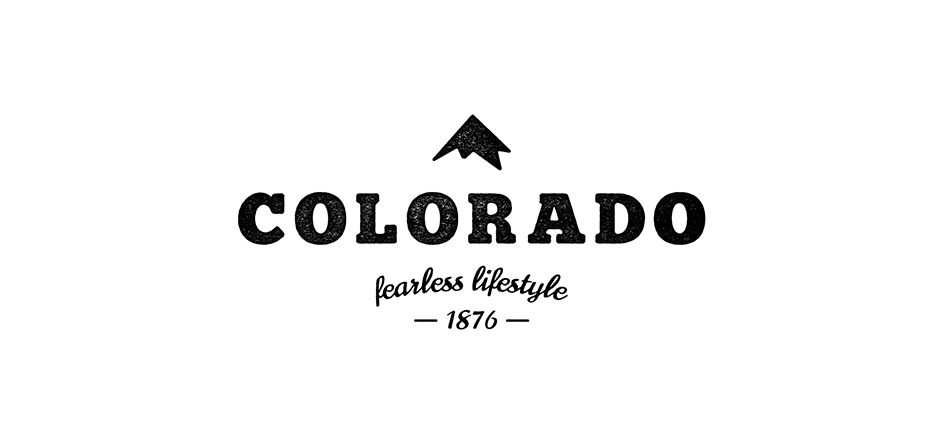
An interview with Luke Anspach on his quest to rebrand USA
It all started as a Senior exit project for Luke's Anspach undergrad in college but soon grew into a worthwhile revolving concept showing the United States as a melting pot through cohesive and yet unique state brands. He wanted to take a fun break from client work and explore a design style that he wasn’t typically able to do in a commercial setting. Since then, it has developed a new life of its own with a vision to “Reveal beauty and inspire wonder back into America.” He believes that so much of the United States has lost its patriotism and love for country. “We’ve taken our nation for granted.” He adds to this, our media is all very negative, never showing anything positive that is happening in the country or across the globe. And here comes the new vision for the Branding 50 States project is to put something positive out there about the United States and help foster a sort of national and state pride in where we live. Again, its purpose is to “Reveal beauty and inspire wonder back into America.”
“Reveal beauty and inspire wonder back into America.”
Get prepared for great amount of juicy information because Luke shared his opinions on Branding 50 States of America, what a designer should keep in mind while choosing the typography on a city branding project, which already designed city brands are considered worthy to his opinion and what people think on city branding.
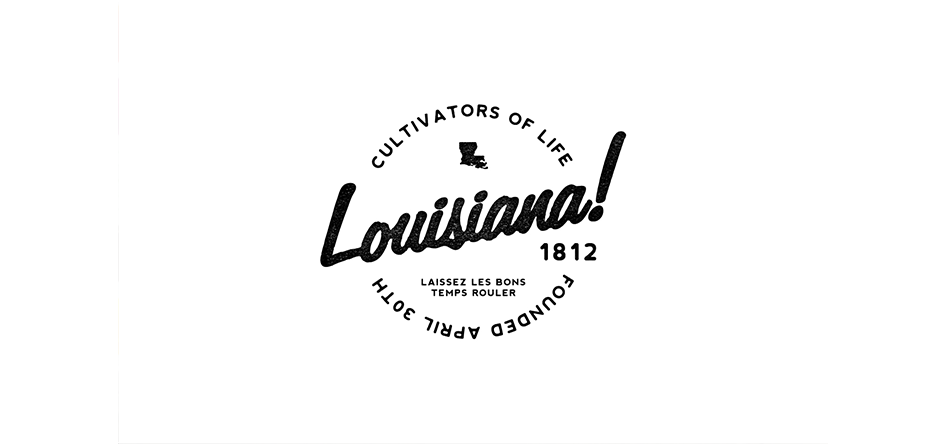
What things you take into consideration when designing each state identity and what is the process?
I start with a good amount of research about the state. I look at its history, culture, economy, what it has been known for (both now and before), the various tag lines the tourism sector has used for it, what it’s like now, and where it’s headed. I basically try and take a large and over-arching look at “who” the state is and “what” makes it unique.
“I take into account the research that I’ve done, the values, and the vision and seek to communicate all of that through the design.”
In this process I look for over-arching themes that appear to be consistent and make a list of values for the state. After narrowing down the values, I develop a “big idea” or over-arching and inclusive vision. This typically becomes the tagline. Only then do I really work on the actual visual-identity. I take into account the research that I’ve done, the values, and the vision and seek to communicate all of that through the design.
You have managed to create unique typographic images for each city, that can actually represent it successfully. How important do you think typography is, when a city branding is being studied.
I think that typography is incredibly important and is quite often overlooked. Each typeface has numerous subtleties that are communicating ideas and emotions and it’s important to take into account and interpret what these are. I spend a good chunk of time in the process researching which typeface would be most effective in communicating the vision and who the state is, given the vintage-styled context. And then I usually try and see how I might alter that typeface and craft it to a place where it communicates what I want it to and is visually unique.
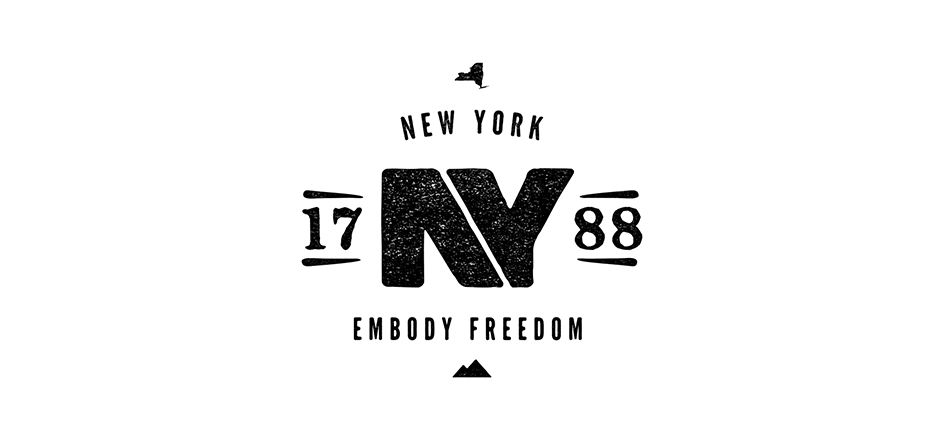
You have a visual style considering the overall image of the states, as you mention it is cohesive. Do you think that United States need a consistency in each State's design and why?
That is a great question and an interesting concept––that of unifying the designs of each state. I think from a design perspective, it would make sense. Like any brand with sub-brands, good design goes together and supports each other. I think if that were ever to happen for the United States it would become very effective in communicating itself and educating others about itself to both those inside and outside of the United States.
How do you see the project when all the 50 states will be designed? Any plans for the future?
With this new vision for “Revealing beauty and inspiring wonder back into America” I hope to eventually have a Branding 50 States “brand.” I’d love to have a website where I have incorporated these designs into hand-crafted, state-specific products and where photography, film, and story can all be featured to support this vision. I have been able to collaborate already with a number of U.S. Instagramers on the project’s Instagram as well as with a T-Shirt campaign startup that used one of my designs.
We see very often that cities around the globe put efforts on redesigning their identity. Do you consider city branding an essential thing and why?
I think that “Place Branding” is extremely essential. Makoto Fujimura, a Japanese-American art-philosopher, once wrote, “Art is a building block of civilization. A civilization that does not value its artistic expressions is a civilization that does not value itself…The arts teach us to respect both the diversity of our communities and the strength of our traditions”.
“A city that brands itself (hopefully well) is one that respects itself as a community.”
I would also suggest that this applies to design as well. A city that brands itself (hopefully well) is one that respects itself as a community. The whole process of branding is about becoming self-aware and understanding who the city is and how to communicate themselves creatively and effectively. A city that chooses not to do this or chooses not to do it well, shows no value for itself, both internally and externally.
Additionally, from a economic standpoint, if a city cannot respect itself enough to present itself well, then why would anyone want to invest in or be a part of that city? I believe design directly affects its well-being.
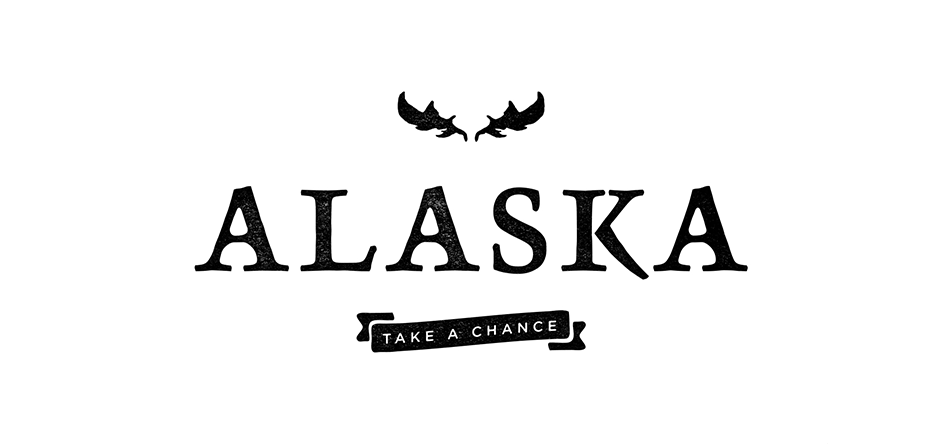
Give us an exclusive short statement, anything you want. Something like a tweet.
Design is powerful. And it’s so powerful, that it can raise a city back to life.